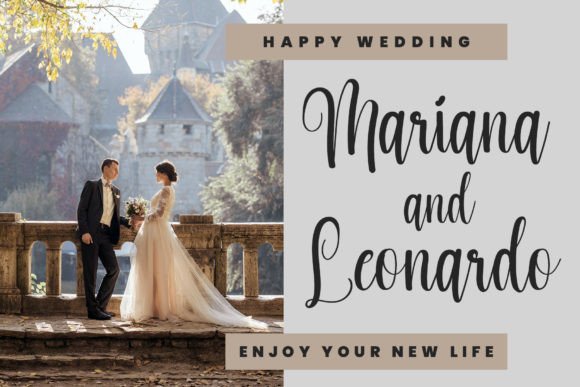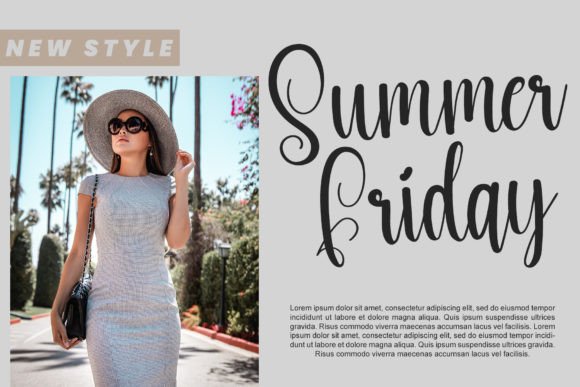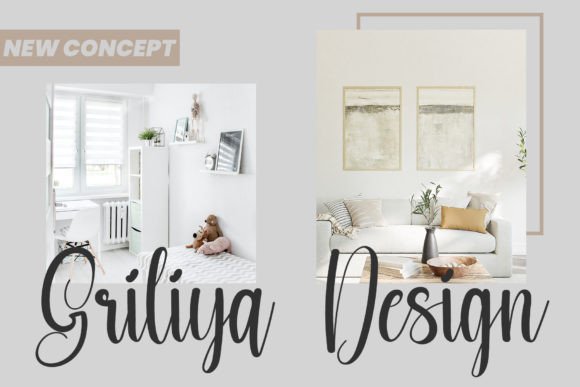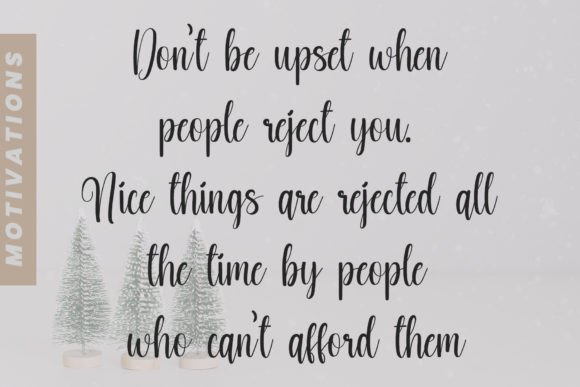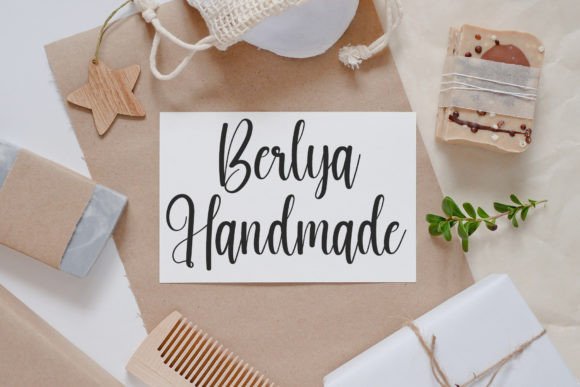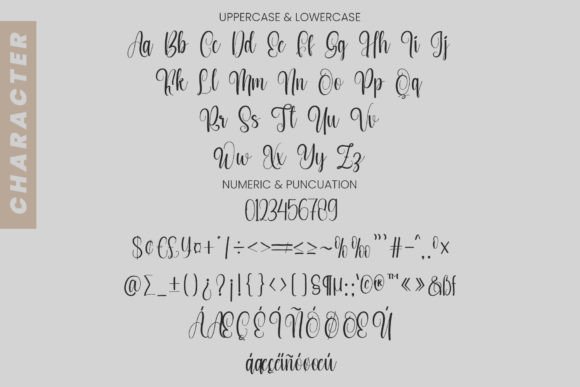
Introducing Granted Font: The Sweet and Elegant Script Font for Your Design Needs
Are you looking for a font that can add a touch of elegance and romance to your designs? Look no further than Granted Font, a beautiful and cursive handwritten signature script font. This gentle font is perfect for a variety of design ideas and is sure to make your projects stand out.
What Makes Granted Font Special?
Granted Font is a unique and stylish font that is perfect for designers and crafters who want to add a touch of sophistication to their work. This sweet and cursive font has a romantic feel that makes it ideal for a range of design projects, from branding and logos to wedding materials and greeting cards.
One of the things that sets Granted Font apart is its elegant and casual feel. This font is perfect for designers who want to create a luxurious and high-end look without sacrificing a friendly and approachable feel. Whether you’re working on a marketing campaign or a fashion lookbook, Granted Font is sure to impress.
Granted Font is a versatile font that can be used for a wide range of design projects. Here are just a few ideas to get you started:
- Branding: Use Granted Font to create a logo or brand identity that is both elegant and memorable.
- Wedding Materials: Add a touch of romance to your wedding designs, including invitations, programs, and decorations.
- Greeting Cards: Use Granted Font to create beautiful and heartfelt greeting cards for any occasion.
- Fashion: Add a touch of glamour to your fashion designs, including lookbooks, catalogs, and advertisements.
- Marketing Promotion: Use Granted Font to create eye-catching marketing materials, including flyers, brochures, and social media graphics.
Why Choose Granted Font?
There are many reasons why Granted Font is a great choice for your design needs. Here are just a few:
- Elegant and Casual: Granted Font has a unique and stylish feel that is both elegant and casual.
- Versatile: This font can be used for a wide range of design projects, from branding and logos to wedding materials and greeting cards.
- Easy to Read: Granted Font is clear and easy to read, making it perfect for body text and headlines.
- Unique: This font has a distinctive and memorable feel that will set your designs apart from the crowd.
Tips for Using Granted Font
Here are a few tips for getting the most out of Granted Font:
- Use it as a Headline Font: Granted Font is perfect for headlines and titles, where its elegant and cursive feel can really shine.
- Pair it with a Sans Serif Font: For body text, try pairing Granted Font with a clean and simple sans serif font.
- Experiment with Colors: Granted Font looks great in a range of colors, from soft pastels to rich jewel tones.
- Don’t be Afraid to Get Creative: Granted Font is a versatile font that can be used in a wide range of design projects. Don’t be afraid to experiment and try new things!
In conclusion, Granted Font is a beautiful and elegant script font that is perfect for designers and crafters who want to add a touch of sophistication to their work. With its unique and stylish feel, versatility, and ease of use, Granted Font is sure to become a favorite in your design arsenal.